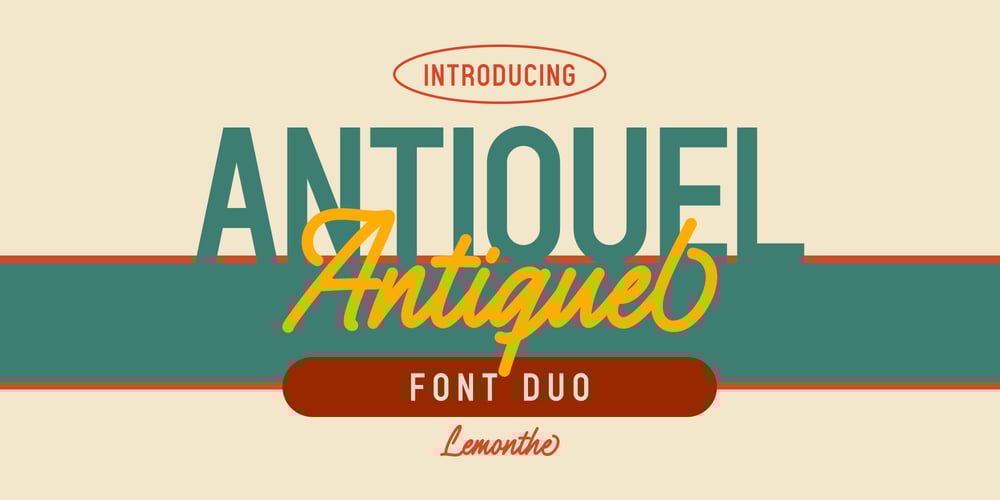
Antiquel Font Family was designed by Dwi Ahidian and published by Lemonthe. Antiquel contains 2 styles and family package options. Antiquel Font Duo: Is the perfect combination of clean and modern all caps sans-serif style with a classic script touch. It’s suitable for creating various design projects such as logos, branding, labels, posters, titles, packaging, quotes, with a retro or modern style.